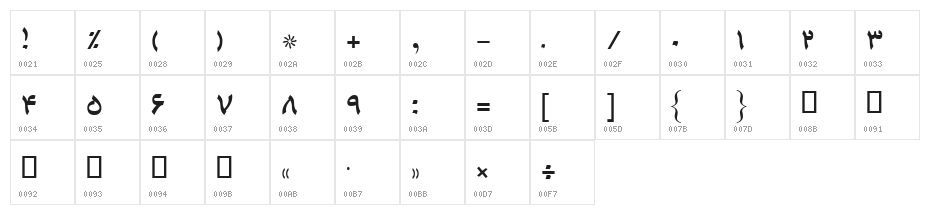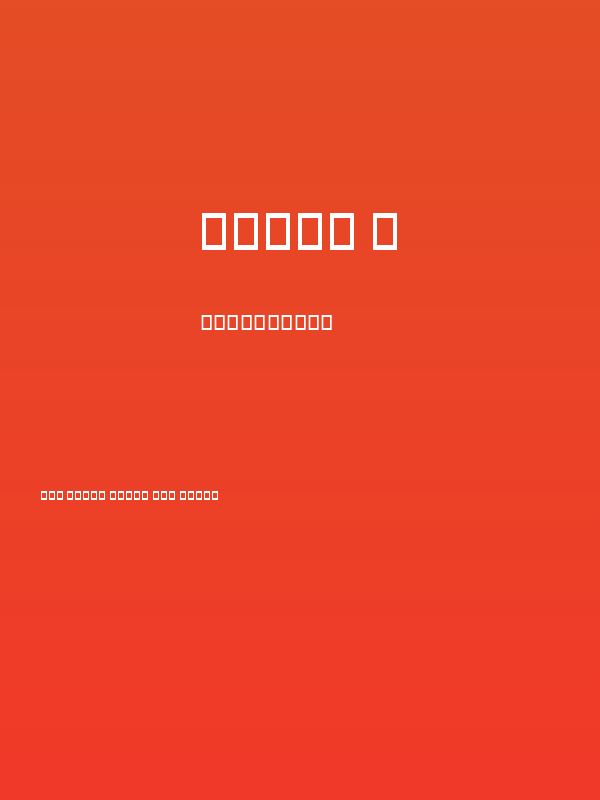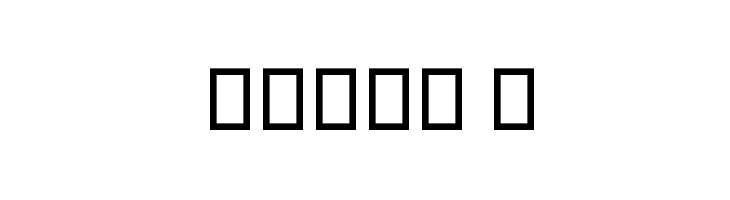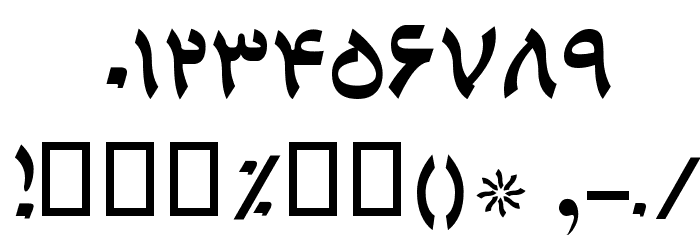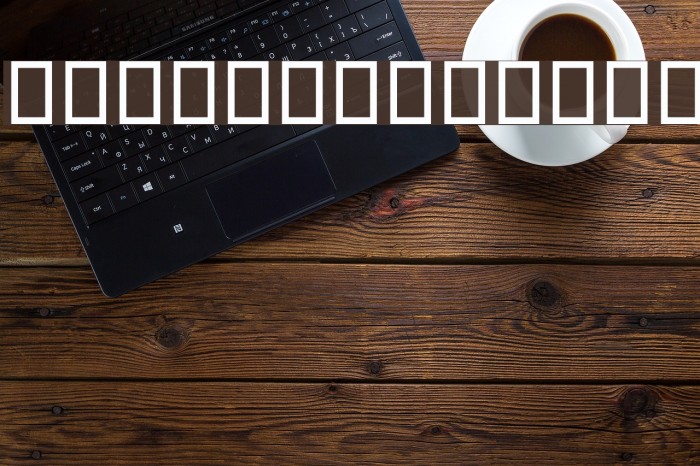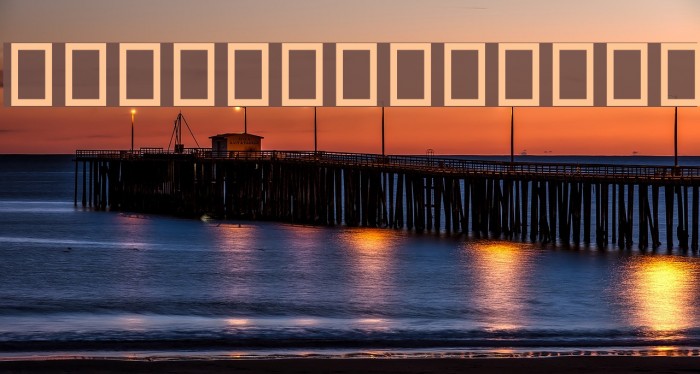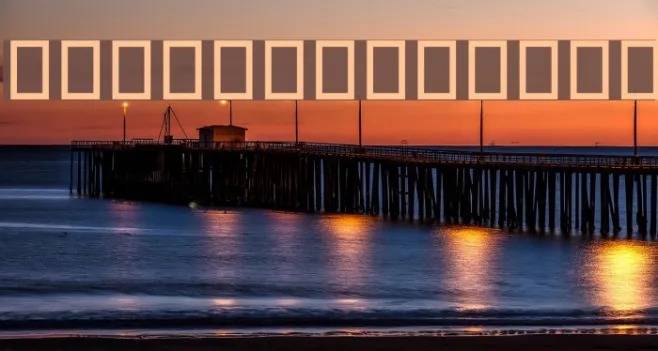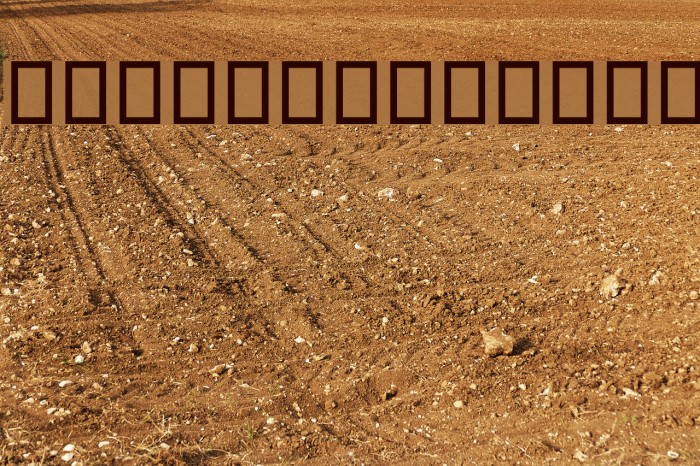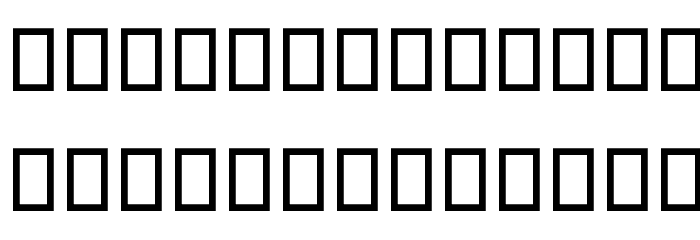
Wahid I Font
Wahid I Description
This font features a unique blend of traditional and modern elements, characterized by its distinct, flowing script style. The numerals and special characters are crafted with a calligraphic flair, adding an artistic touch to the overall design. The strokes are smooth and slightly varied in thickness, giving a dynamic yet harmonious appearance. The font maintains a consistent baseline, ensuring readability while offering a decorative appeal. Its elegant curves and intricate details make it suitable for projects that require a touch of sophistication and creativity.
| Use Case | Logos, Invitations, Artistic Projects |
| Proposed Projects | Ideal for wedding invitations, greeting cards, artistic posters, and branding materials that require a sophisticated and creative touch. |